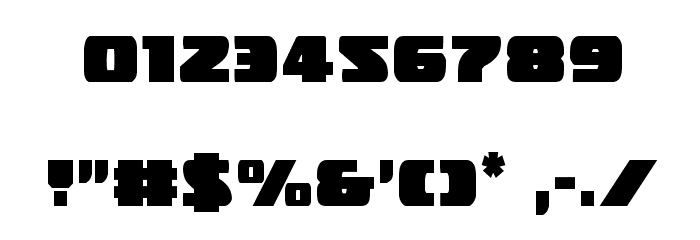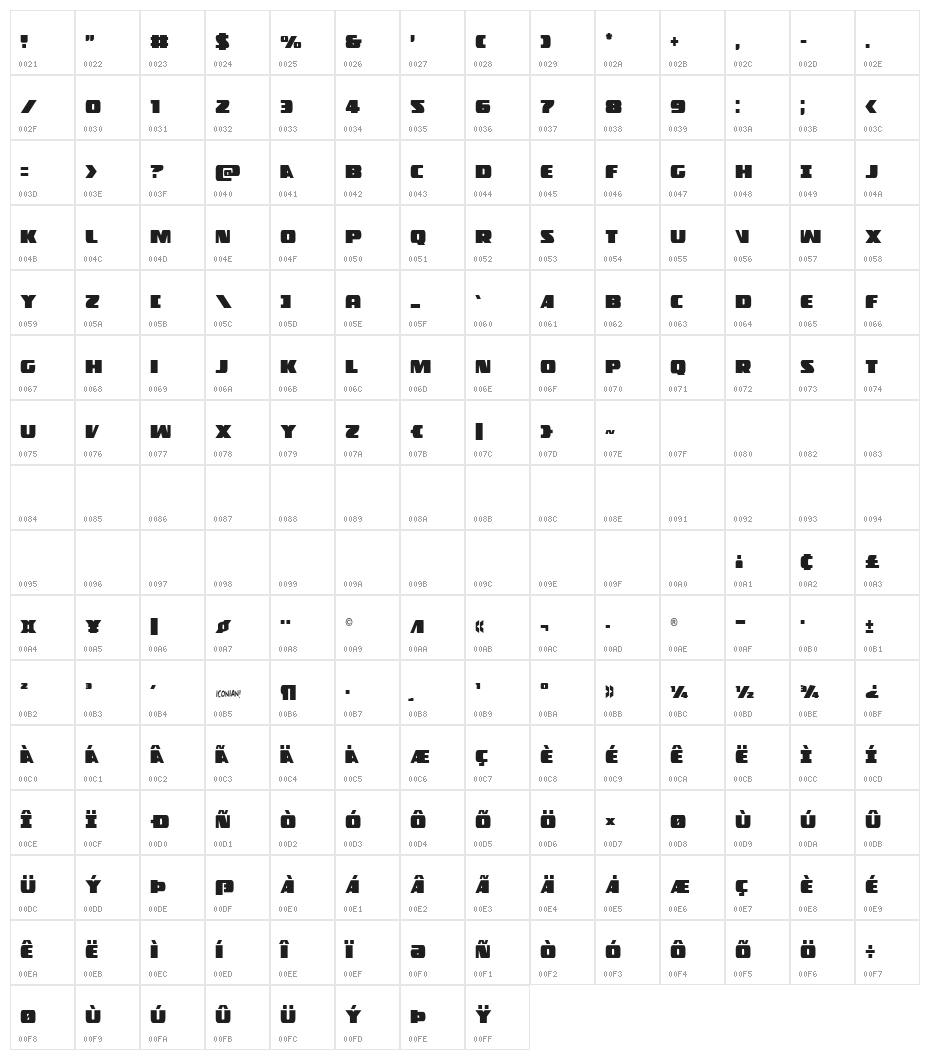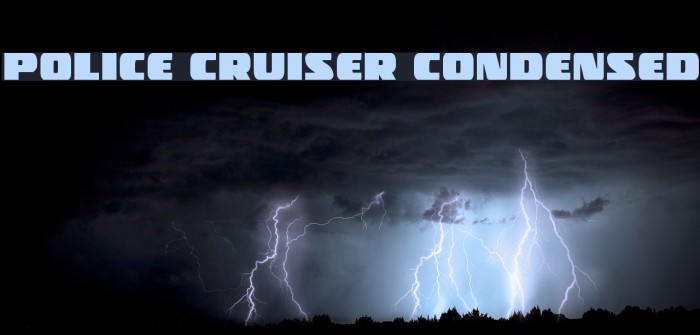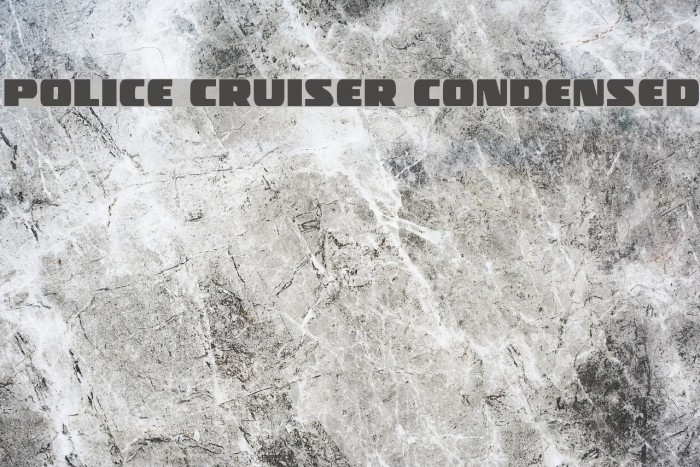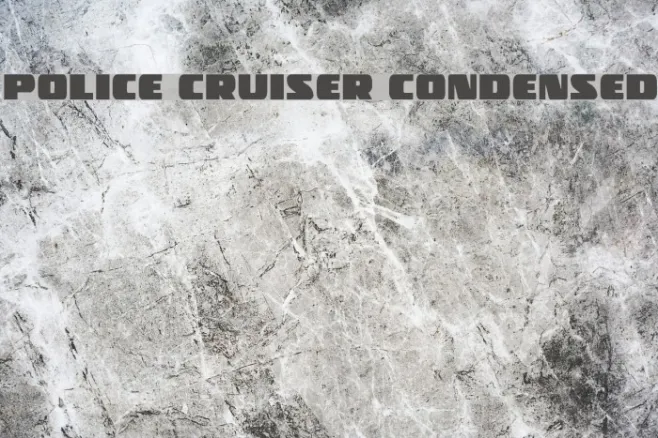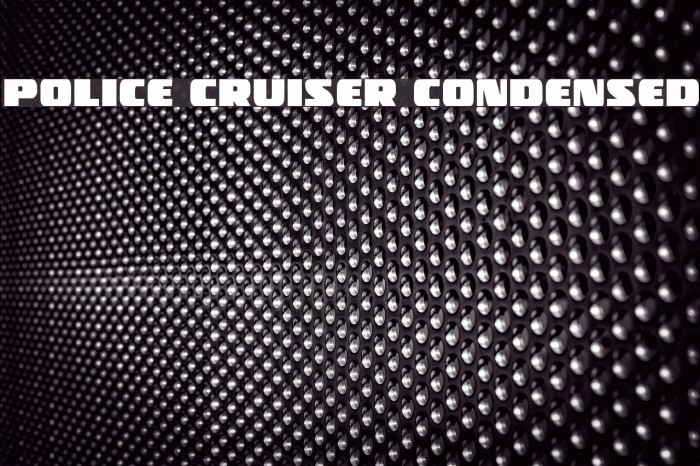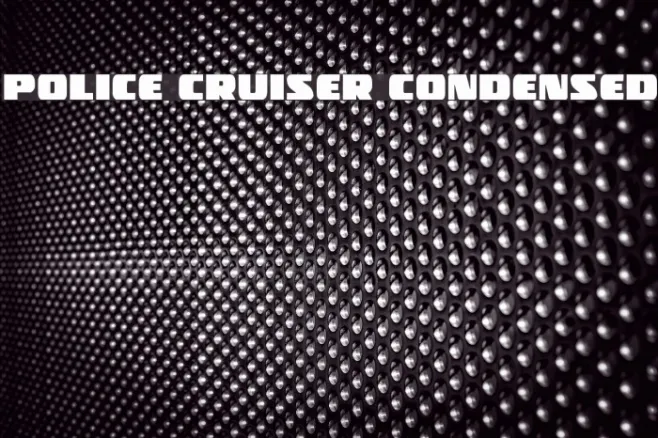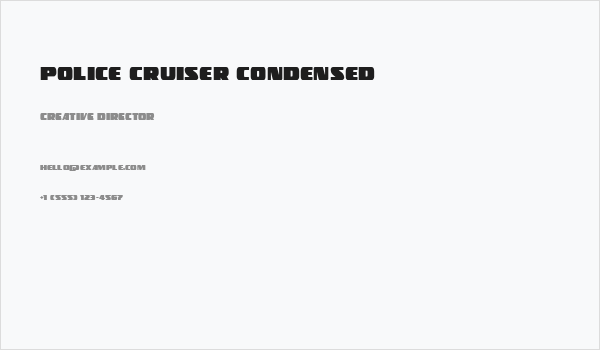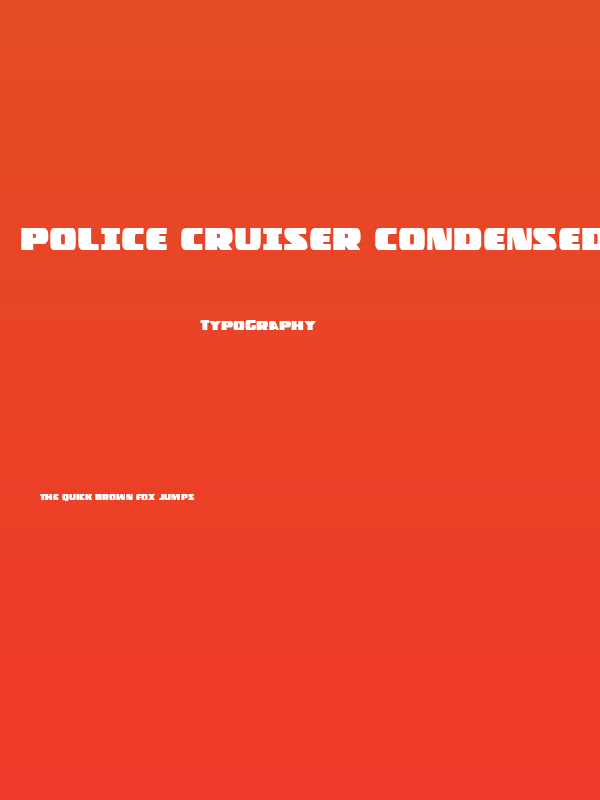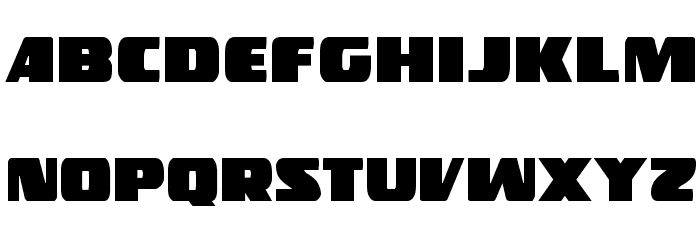
This font features a bold and impactful design with a condensed structure, making it ideal for attention-grabbing headlines and titles. The characters are uniformly thick, with a strong geometric influence that gives them a modern and authoritative appearance. The uppercase letters are particularly striking, with sharp angles and a blocky aesthetic that conveys strength and stability. The numbers and special characters maintain the same boldness and clarity, ensuring consistency across all text elements. This font's condensed nature allows for efficient use of space without sacrificing readability.
| Proposed Projects | Ideal for use in posters, banners, logos, and any design requiring a strong visual impact. |